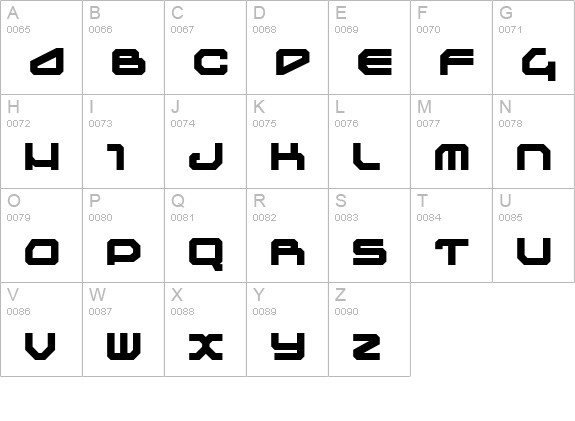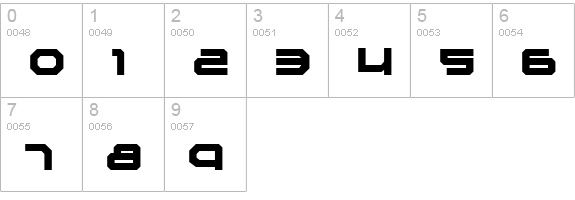
Traveler Bold is a strong, high-contrast variant in the Traveler typeface family \xE2\x80\x94 well suited to headlines, attention-grabbing titles, and strong calls-to-action.
Traveler Bold font is a versatile typeface that exudes a sense of adventure and wanderlust. Its bold and striking design makes it perfect for a wide range of creative projects, from travel brochures to outdoor-themed designs. The strong, rugged lines of Traveler Bold convey a sense of reliability and strength, making it an ideal choice for branding and logo design. What sets Traveler Bold apart is that it is available for free download at FontsMarket.com. This means that you can easily access this high-quality font without any cost, making it a valuable addition to your font library. Whether you're a professional designer looking for a new go-to font or a hobbyist looking to add some flair to your personal projects, Traveler Bold is sure to impress with its bold, adventurous style. Download Traveler Bold today and add a touch of wanderlust to your designs!